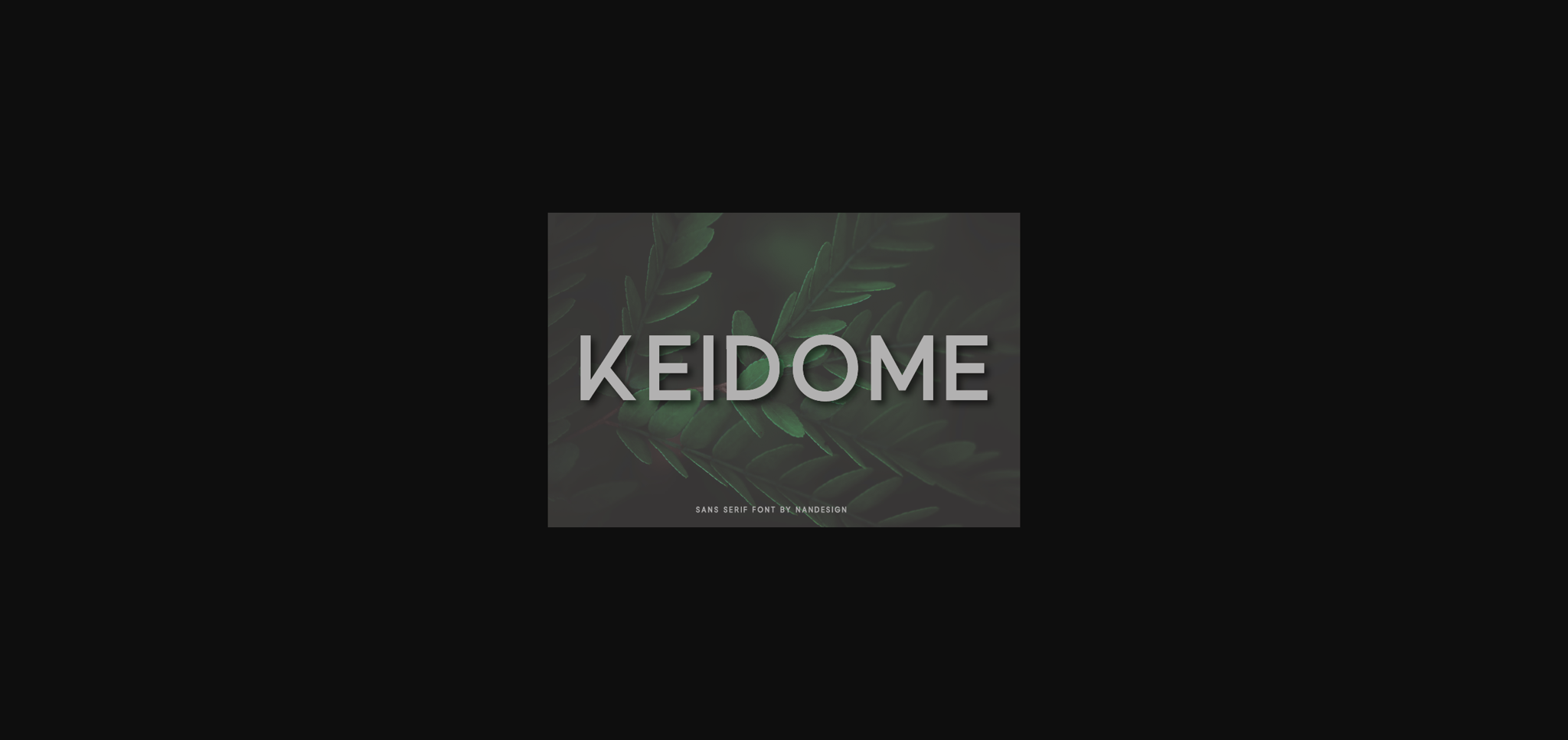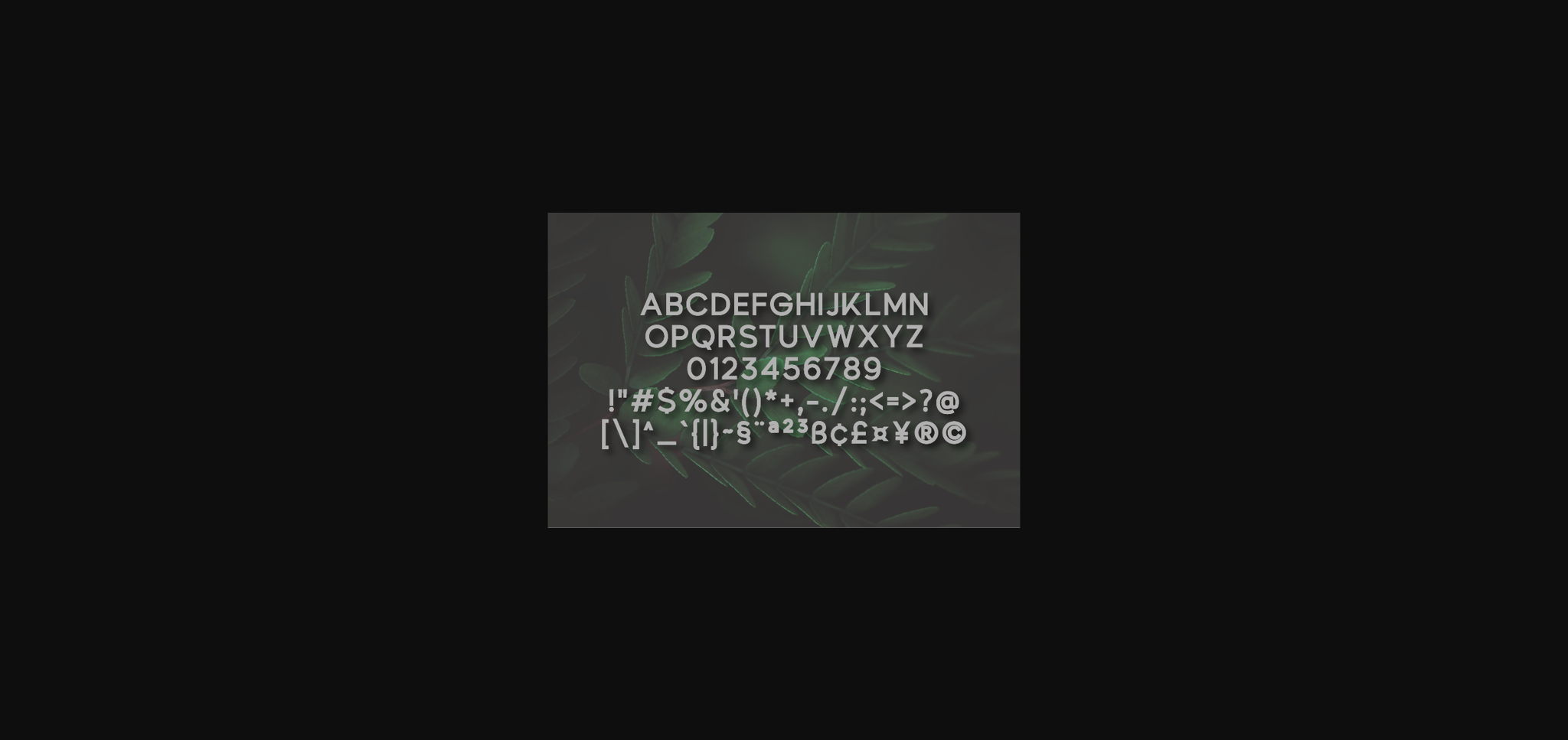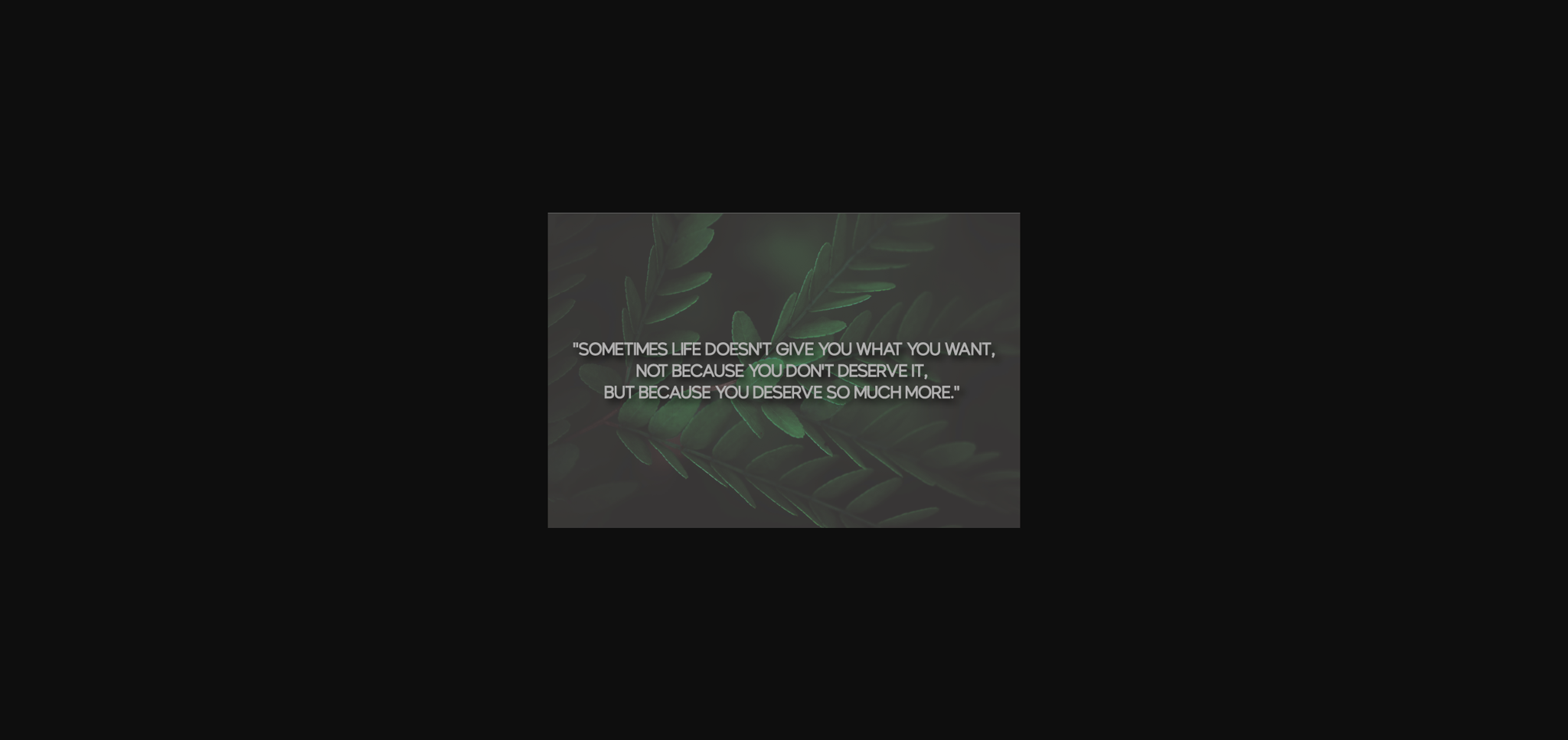
About Keidome Font
Keidome is a modern and casual sans serif font with an undeniably clean feel. With its neat and beautiful arrangement of letters, this typeface will look outstanding in both formal and non-formal designs.